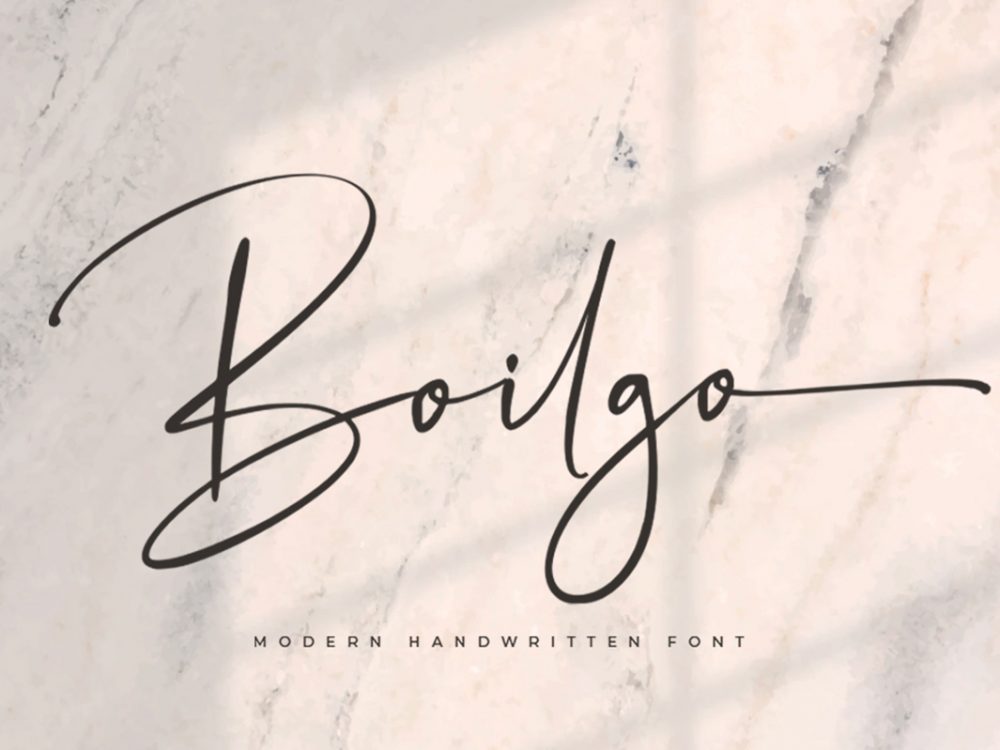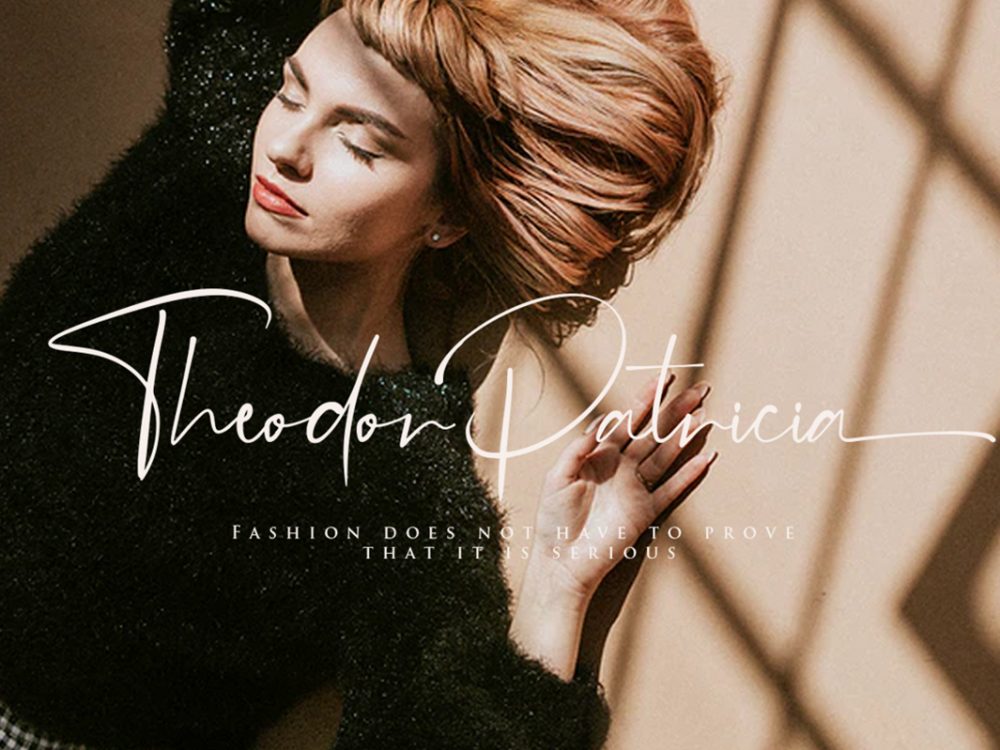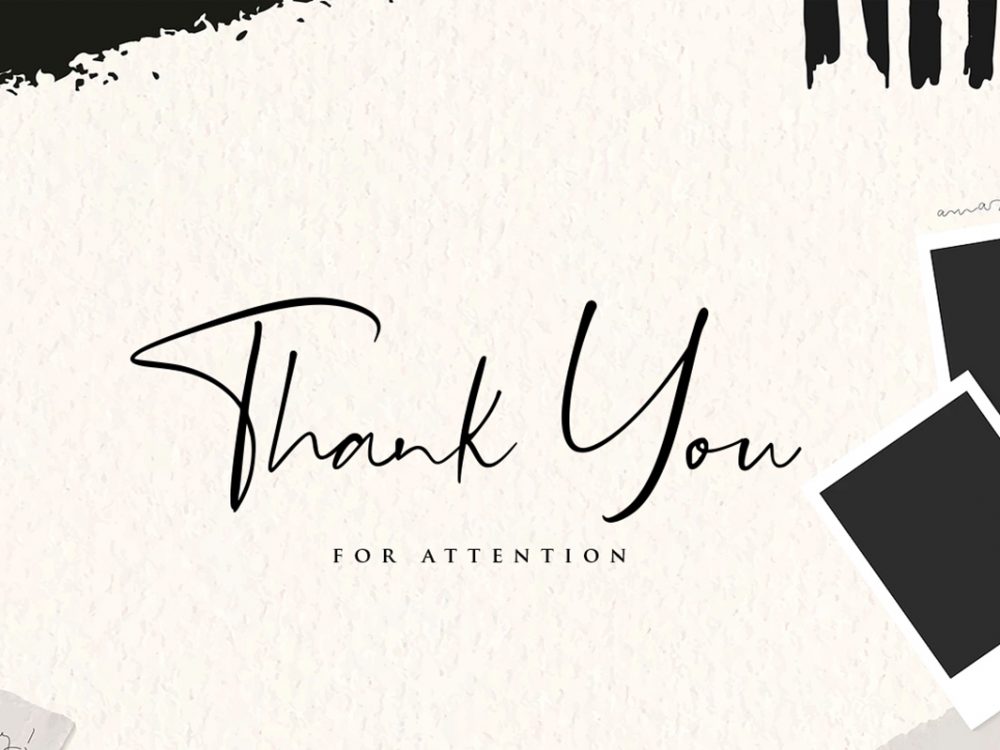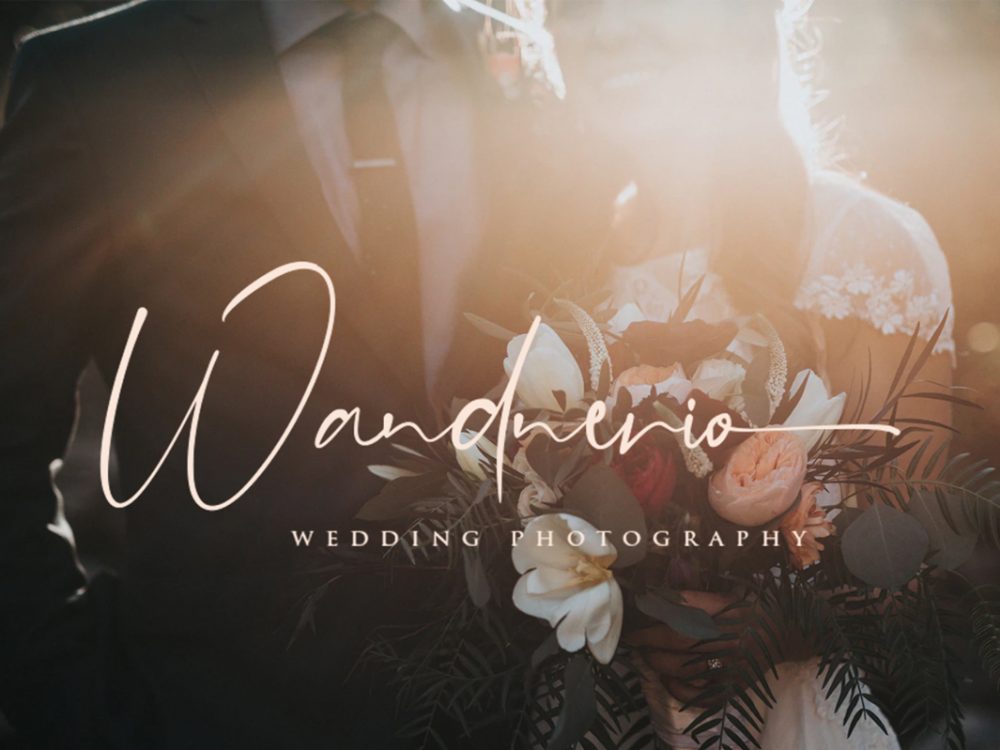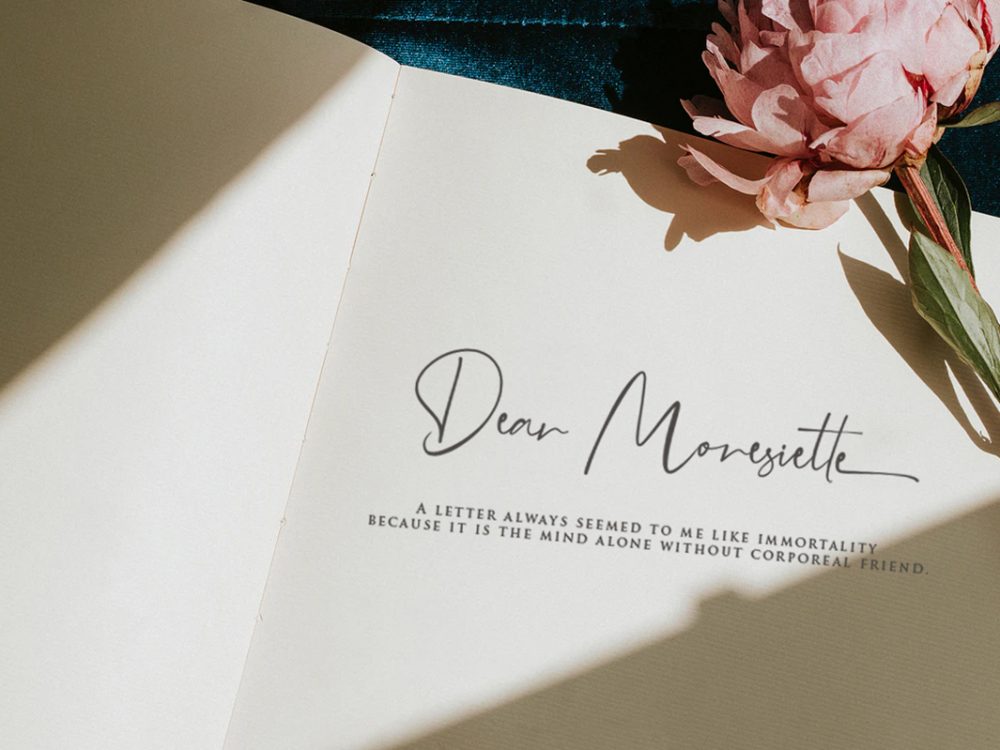
Boilgo Free Font
Boilgo Free Font is a calligraphic font that has a unique style. This font is very suitable for a variety of design projects that require a scripted handwritten font. You can use this font to create memorable romantic posters, wedding invitations, greeting cards, branding, flyers, t-shirt and pillow prints, and more. If you like it don’t forget to check out the full version.